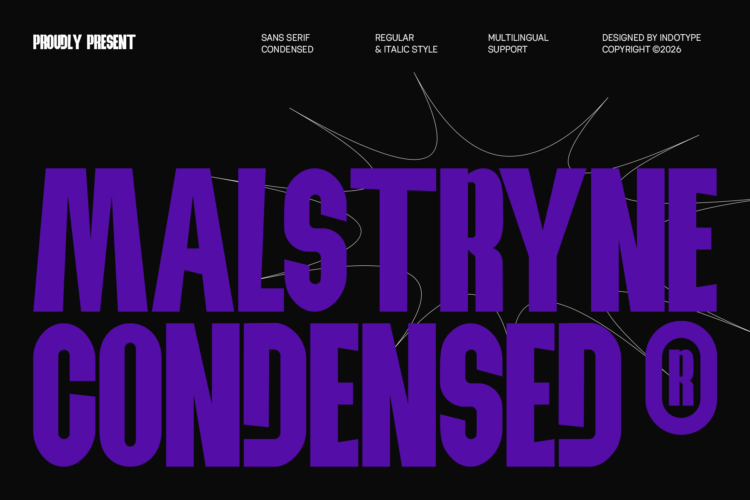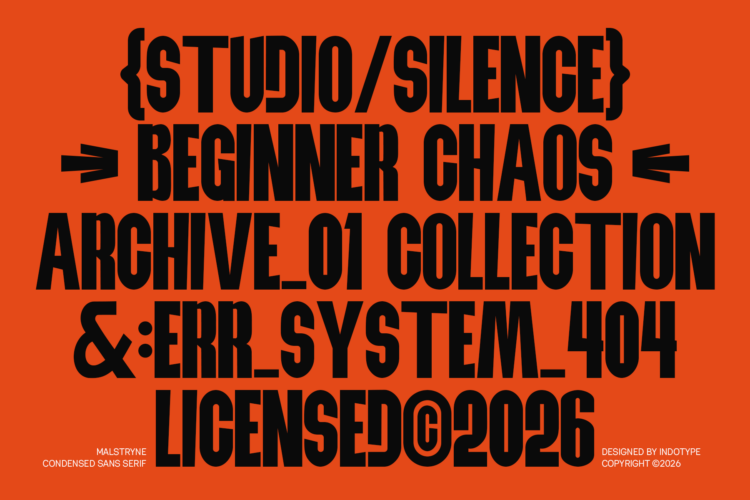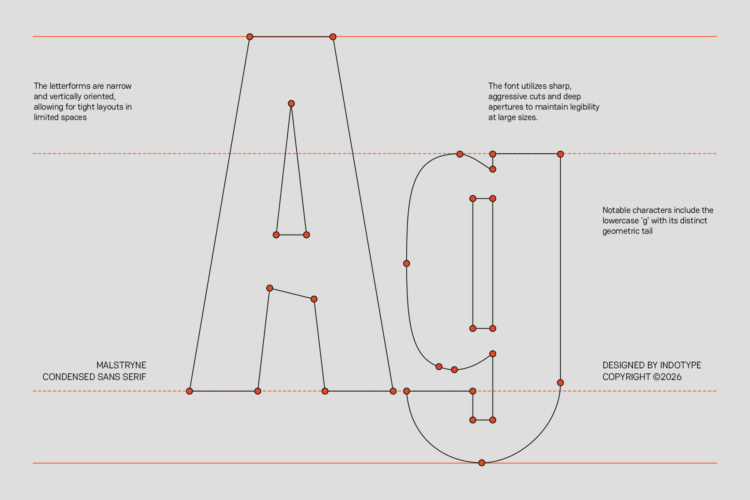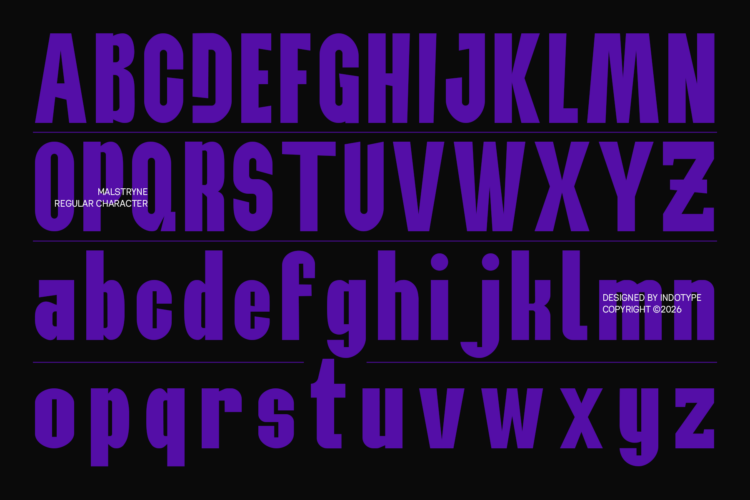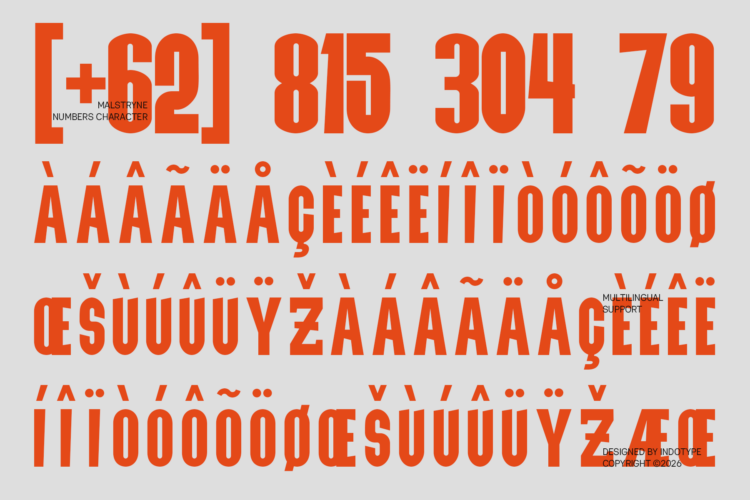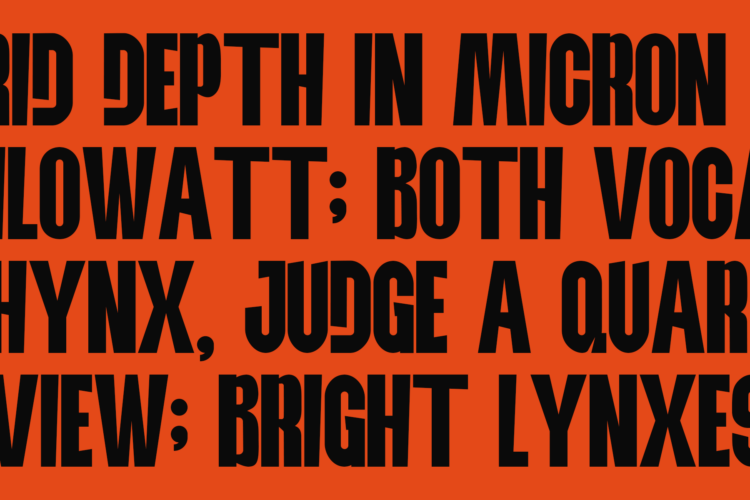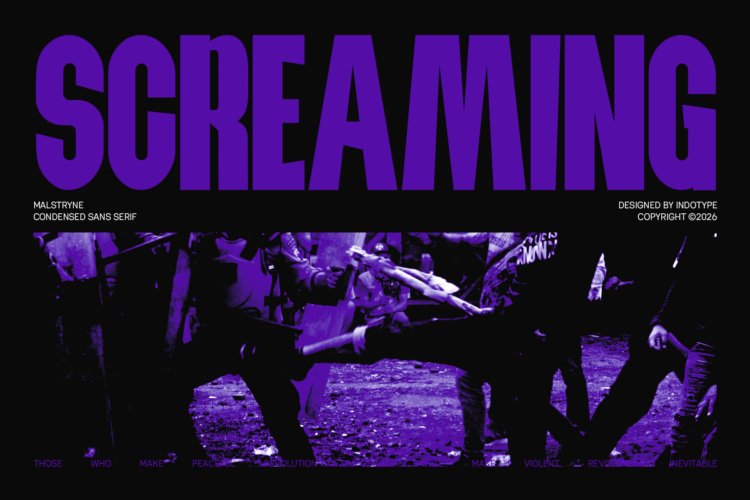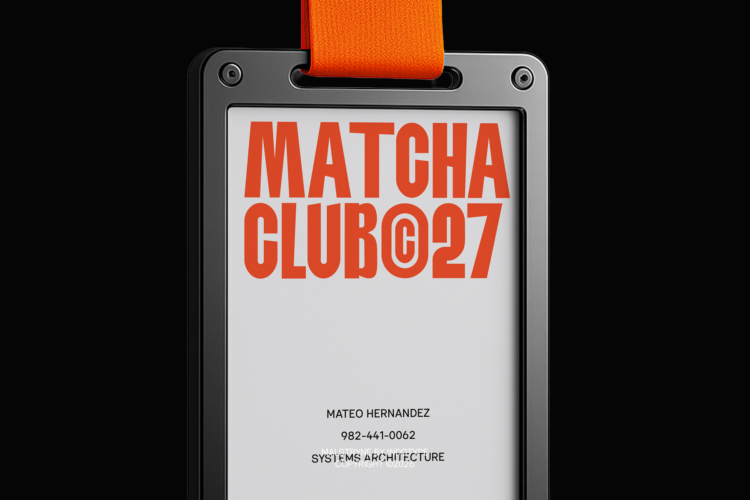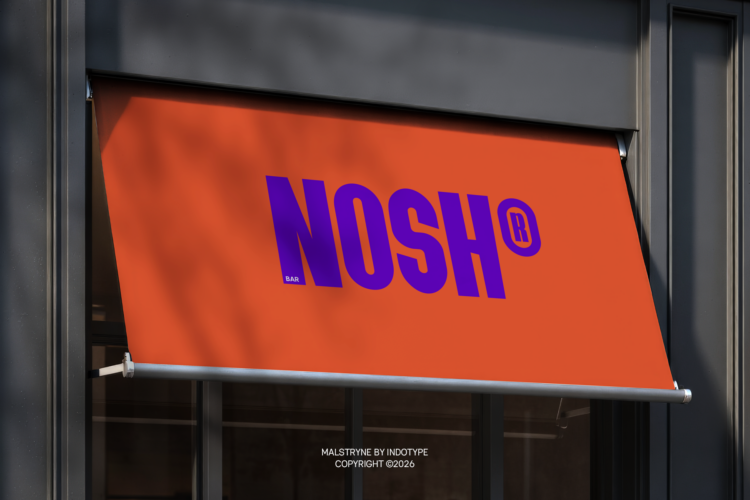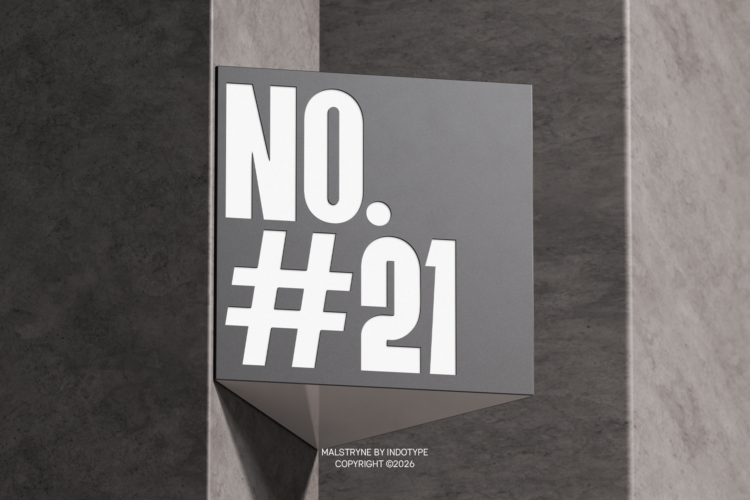
Malstryne is a commanding condensed sans-serif typeface designed for projects that demand presence within limited space. Its tightly packed letterforms, vertical emphasis, and strong shoulders create a dense, powerful texture that commands attention without sacrificing legibility. This is typography that stacks, compresses, and delivers impact—perfect for headlines, banners, and any application where every pixel counts. Available in both Regular and Italic styles with comprehensive multilingual support, Malstryne offers versatility across print and digital platforms. Its condensed nature makes it ideal for editorial headlines with character limits, packaging with narrow panels, sportswear branding, and urban design that needs to shout loud and clear. Malstryne proves that great things come in tight packages.
- Ideal for:Â Editorial Headlines & Subheads, Magazine Covers, Packaging with Narrow Space, Sportswear & Athletic Branding, Poster & Banner Design, Urban & Streetwear Graphics.
- Classification:Â Sans-Serif, Condensed, Display, Geometric.
- Attributes:Â Bold, Tight, Powerful, Space-Efficient, Vertical, Modern, Impactful.
- Regular and Italic Style
- Multilingual Support accents and diacritics